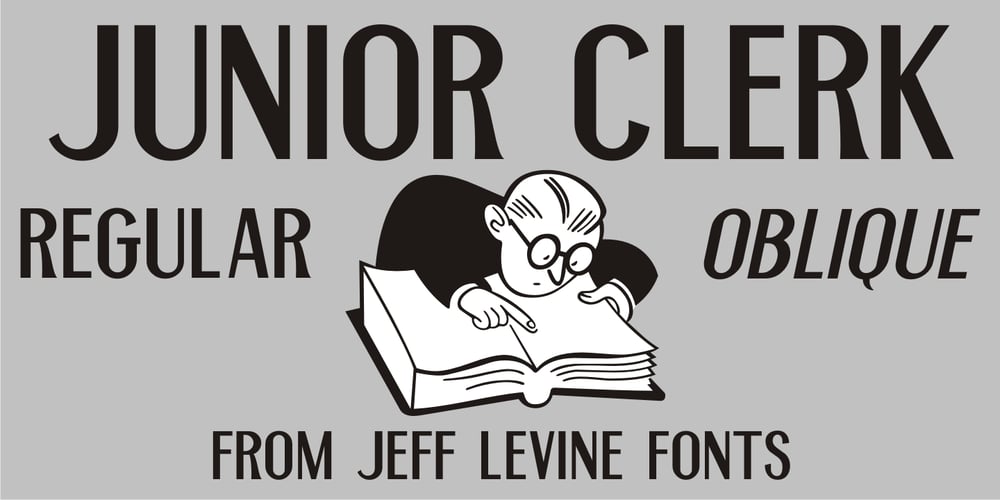
Junior Clerk JNL
Junior Clerk JNL font
Junior Clerk JNL Font Family was designed by Jeff Levine and published by Jeff Levine. Junior Clerk JNL contains 2 styles and family package options. Junior Clerk JNL is the plain sans serif version of the lettering found on the cover of the sheet music for 1919’s “The World is Waiting for the Sunrise”. The song title was originally set in a decorative sans serif with an engraved line adorning each character. This version of the more fanciful design is available as the companion font Legal Eagle JNL. Junior Clerk JNL is available in both regular and oblique versions.